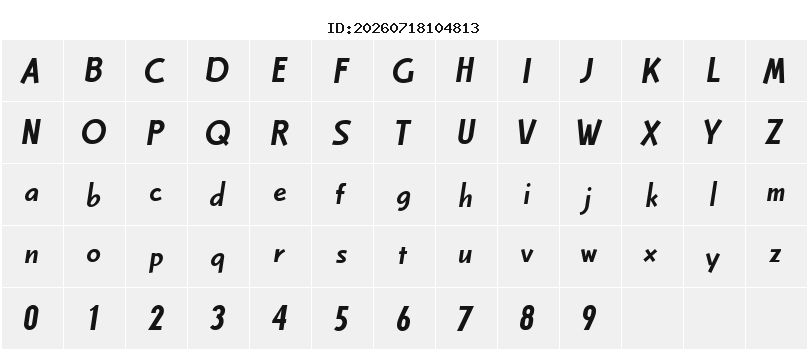
• Font Name: Celbo
• Full Font Name: Celbo Bold
About Celbo.ttf
Celbo.ttf is a modern, elegant sans-serif font designed for ultimate readability and visual harmony. Perfect for branding, headlines, web design, and print materials.